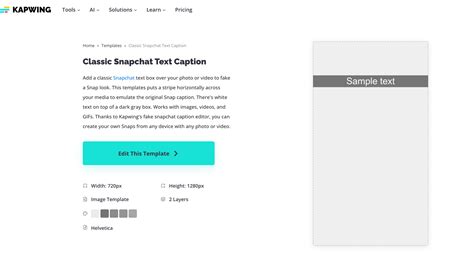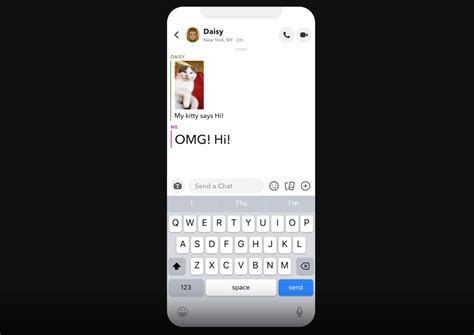
Snapchat has become a staple in the world of social media, known for its ephemeral content and innovative features. One of the lesser-known but highly impactful features is the ability to customize fonts on Snapchat. This feature allows users to express themselves more creatively and make their snaps stand out. Whether you're a casual user or a social media enthusiast, understanding how to change and utilize different fonts can significantly enhance your Snapchat experience.
Understanding Snapchat Fonts
Snapchat offers a variety of fonts that users can apply to their text overlays. These fonts can be used to add a personal touch to your snaps, making them more engaging and visually appealing. The default font on Snapchat is clean and modern, but sometimes, you might want to switch things up to better match your style or the theme of your snap.
How to Change Fonts on Snapchat
Changing fonts on Snapchat is a straightforward process. Here’s a step-by-step guide to help you get started:
- Open the Snapchat app on your device.
- Take a photo or video, or select one from your gallery.
- Tap on the “T” icon at the top of the screen to add text to your snap.
- Type your desired text.
- Once you’ve typed your text, tap and hold on the text box. This will open a menu with different font options.
- Select the font you prefer from the available options.
- Adjust the size, color, and position of your text as needed.
- Tap the send button to share your snap with your friends or post it to your story.
Available Fonts on Snapchat
Snapchat provides a range of fonts to choose from, each with its unique style. Here are some of the fonts you can expect to find:
- Classic: The default font, clean and modern.
- Modern: A sleek, contemporary font.
- Typewriter: A retro-style font that mimics typewriter text.
- Western: A bold, western-themed font.
- Strong: A thick, bold font.
- Classic Bold: A bold version of the classic font.
These fonts can be used to convey different moods and styles, making your snaps more expressive and personalized.
Customizing Text with Fonts on Snapchat
Customizing text with different fonts on Snapchat can make your snaps more engaging. Here are some tips to help you make the most of this feature:
- Match the Theme: Choose a font that matches the theme or mood of your snap. For example, use the “Western” font for a cowboy-themed snap or the “Typewriter” font for a vintage look.
- Experiment with Colors: Change the color of your text to make it stand out. You can choose from a variety of colors or use the color picker to match the colors in your snap.
- Adjust Text Size: Make your text larger or smaller to fit the composition of your snap. Larger text can be used for emphasis, while smaller text can be used for subtlety.
- Positioning: Place your text in a way that complements the visual elements of your snap. You can move the text around the screen to find the perfect spot.
Using Fonts On Snapchat for Business
For businesses, using different fonts on Snapchat can be a powerful tool for branding and marketing. Here are some ways to leverage this feature:
- Brand Consistency: Use a consistent font style that aligns with your brand identity. This helps in creating a recognizable and cohesive look across all your snaps.
- Promotional Offers: Use bold and eye-catching fonts to highlight promotional offers, discounts, or special announcements. This can grab the attention of your audience and make your snaps more effective.
- Storytelling: Use different fonts to tell a story or convey a message. For example, you can use a playful font for a fun event and a serious font for an important announcement.
- Engagement: Encourage your followers to engage with your snaps by using interactive fonts. For example, you can use a font that prompts users to swipe up or tap to learn more.
Advanced Text Customization
For those who want to take their text customization to the next level, Snapchat offers advanced features that can enhance the visual appeal of your snaps. Here are some tips:
- Text Overlays: Use text overlays to add multiple layers of text to your snap. This can be useful for creating complex designs or adding multiple messages.
- Stickers and Emojis: Combine text with stickers and emojis to create a more dynamic and engaging snap. You can use emojis to emphasize certain words or add a playful touch.
- Filters and Lenses: Use filters and lenses to enhance the visual elements of your snap. You can choose filters that complement the font and color scheme of your text.
- Animation: Add animation to your text to make it more dynamic. For example, you can use the “Confetti” or “Fireworks” effects to add a festive touch to your snaps.